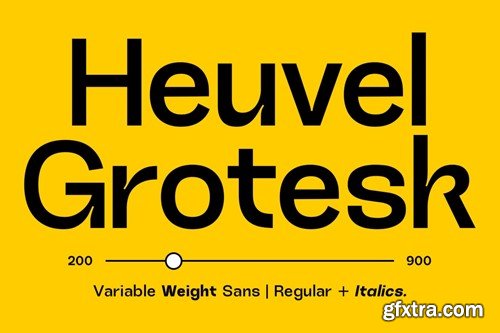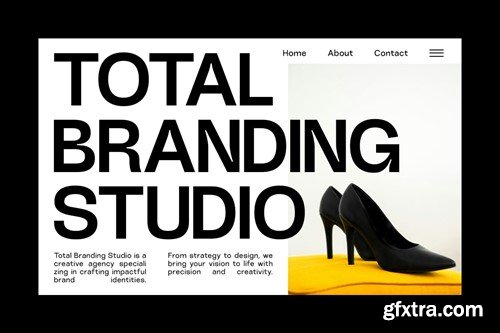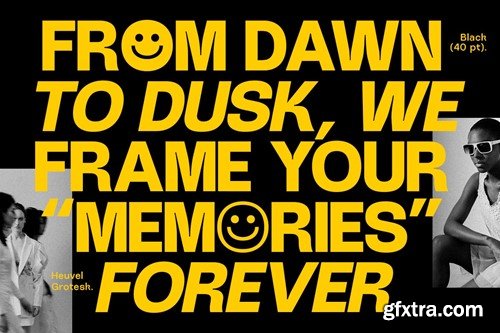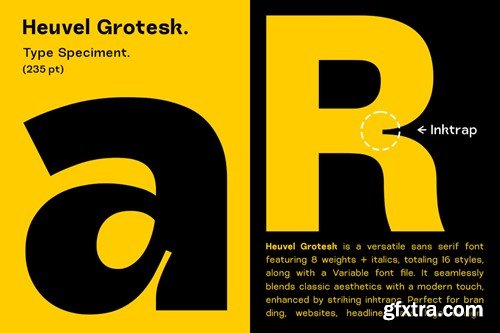
Heuvel Grotesk Sans Serif HNYZMH8
Heuvel Grotesk is a versatile sans serif font featuring 8 weights + italics,
totaling 16 styles, along with a Variable font file. It seamlessly blends classic aesthetics with
a modern touch, enhanced by striking inktraps.
Perfect for branding, websites, headlines, and logo design.